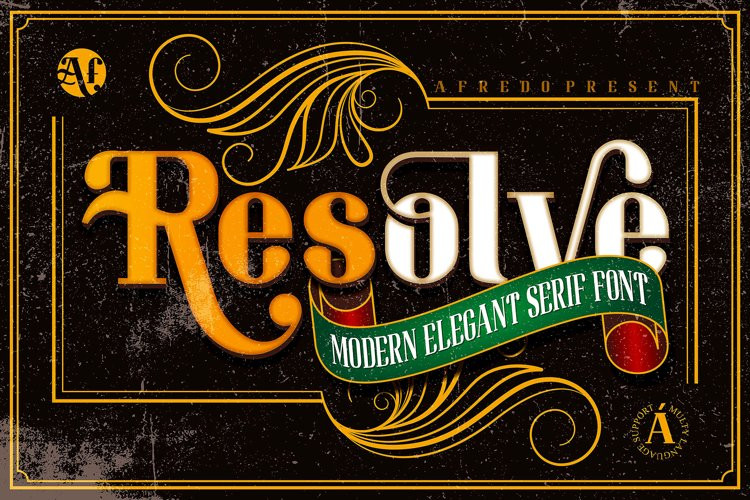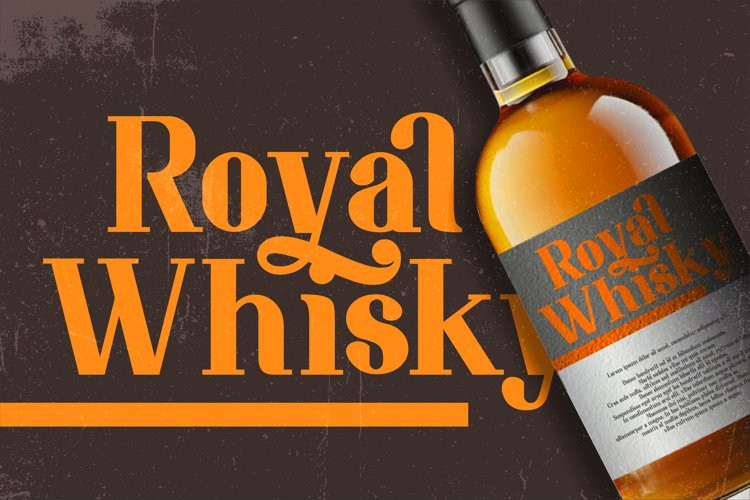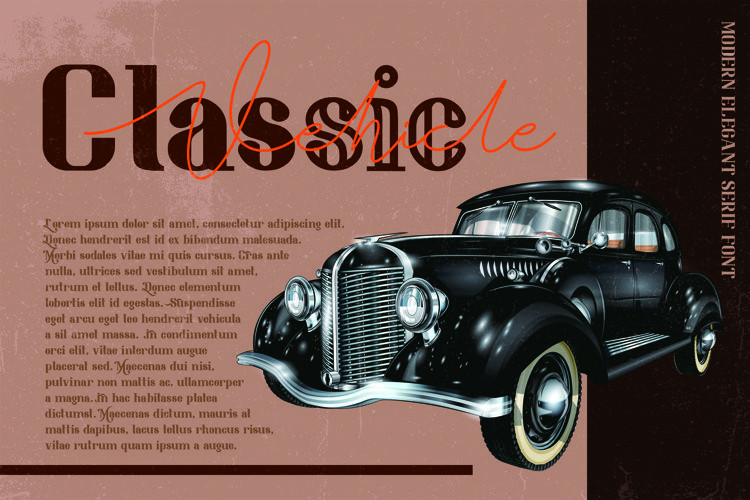
Resolve Font
ResolveResolve a new fresh & modern Elegant Serif font decorative characters and a dancing
baseline! So beautiful on branding
materials, business cards, quotes, posters, logo and more!!